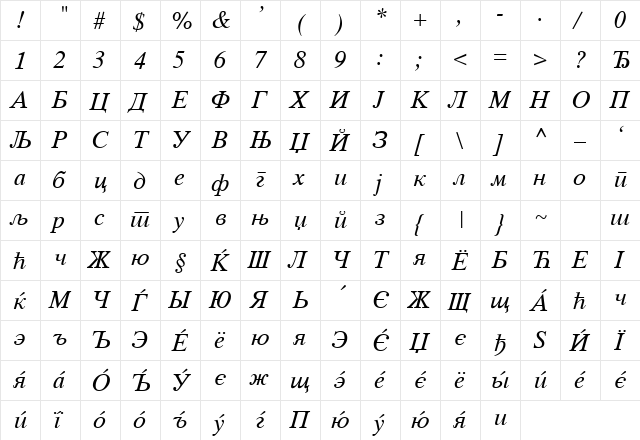
CirilicaTimesItalic Regular
Design Context for CirilicaTimesItalic Typeface
CirilicaTimesItalic is a composed and adaptable typeface that performs quietly and consistently across a wide range of design contexts. Its italic angle brings a sense of urgency and motion to the letterforms.
Pro Tip: Use CirilicaTimesItalic for emphasis, pull quotes, and subheadings where its slanted energy can add rhythm to the layout.